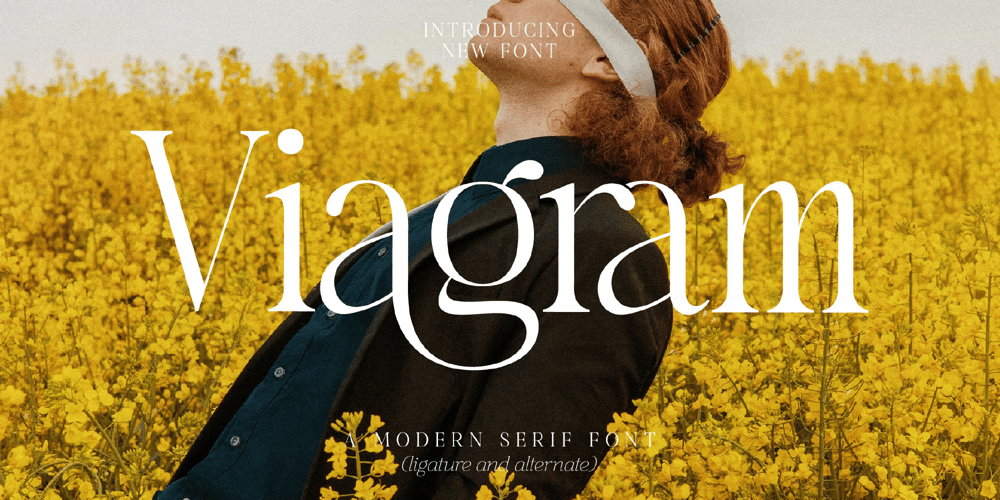
Viagram Font Family was designed by Heru Utama Putra and published by Letterena Studios. Viagram contains 2 styles and family package options. Viagram is a moder and classic serif font that has its own unique style and modern look. This typeface is perfect for an elegant & luxurious logo, book or movie title design, fashion brand, magazine, clothes, lettering, quotes, and so much more.